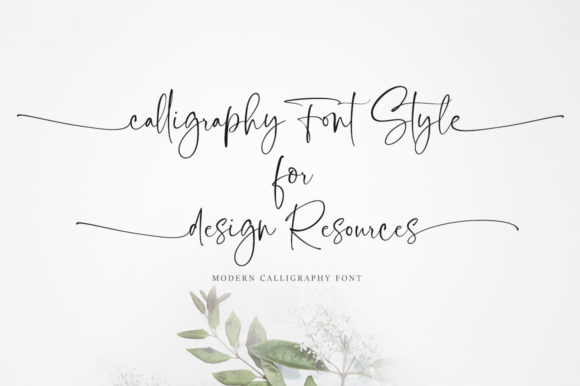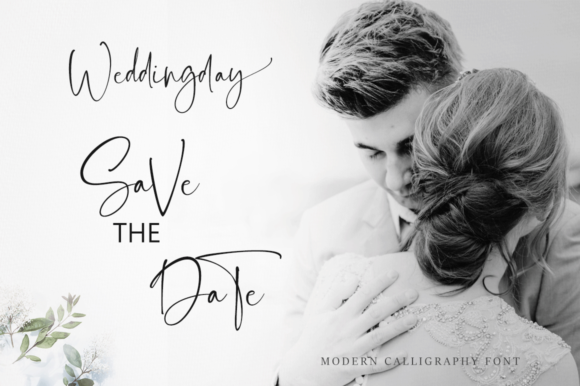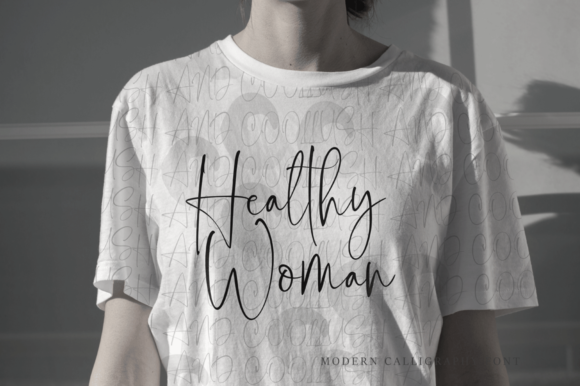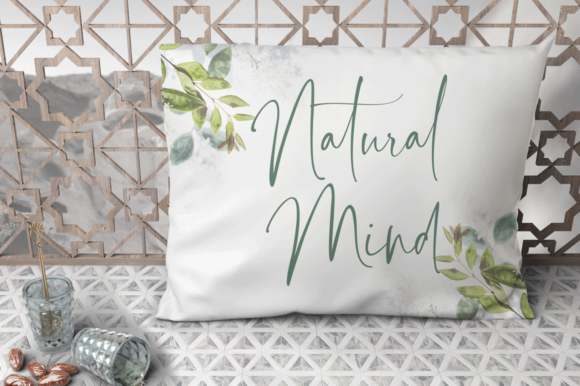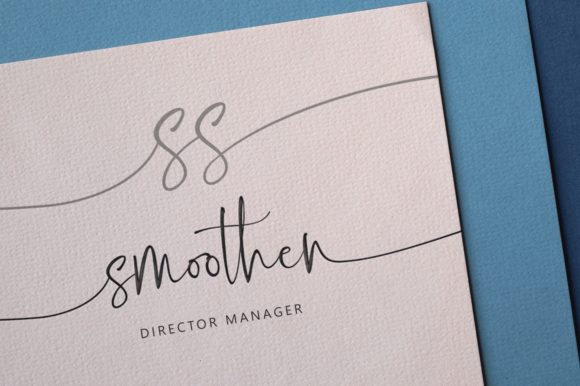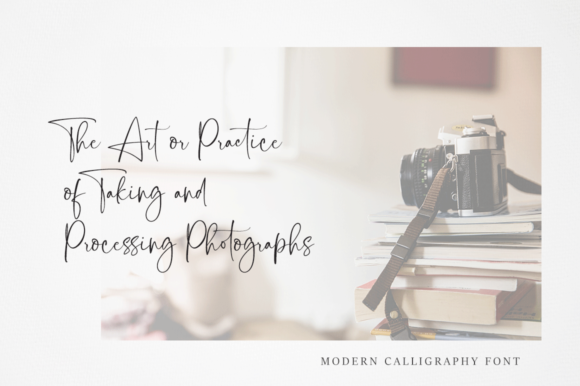
Introduction to Quanika Font
Remember that moment when you’re brainstorming ideas for a new design project, and you stumble upon the perfect font to bring your vision to life? It’s a feeling like no other, isn’t it? For designers, finding that one special font can be the difference between a good design and a truly exceptional one.
That’s where Quanika Font comes in – a lovely and timeless handwritten font that’s perfect for creating eye-catching logos, branding, and quotes. With its unique and beautiful touch, this font is sure to make your design come alive. Whether you’re working on a high-quality creative project or just need a reliable design resource, Quanika Font is definitely worth exploring.
Key Features of Quanika Font
- Includes a range of characters, including uppercase and lowercase letters, numbers, and punctuation marks
- Quanika Font is designed to be highly legible and versatile, suitable for a wide range of design applications
Honest Review: Quanika Font
I recently came across the Quanika Font, and I’m excited to share my thoughts on this design resource. As a designer, I’m always on the lookout for high-quality fonts that can elevate my creative project to the next level.
The Quanika Font is a beautiful, modern script font that works well for a variety of designs, from invitations to logos. I particularly like the way it looks on a transparent background, which makes it perfect for digital designs.
Here are some things that work well about the Quanika Font:
- ✨ Elegant and sophisticated design
- ✨ Great for digital designs, especially with a transparent background
- ⚠️ Limited character set, which may not be suitable for longer text
- ⚠️ Not ideal for print designs, as the font may not hold up well to scaling
Overall, I’m impressed with the Quanika Font. While it may have some limitations, it’s a great resource for designers who need a high-quality, modern script font for their creative projects. The free download is a definite plus, and I appreciate the transparent background option. I’d definitely recommend checking it out if you’re in the market for a new font.
Common Use Cases for Quanika Font
The Quanika Font is perfect for a variety of creative projects, including brochures, flyers, business cards, and websites. Its high-quality design and transparent background make it ideal for use in any design application. With its free download, you can start using the Quanika Font today and elevate your design to the next level.